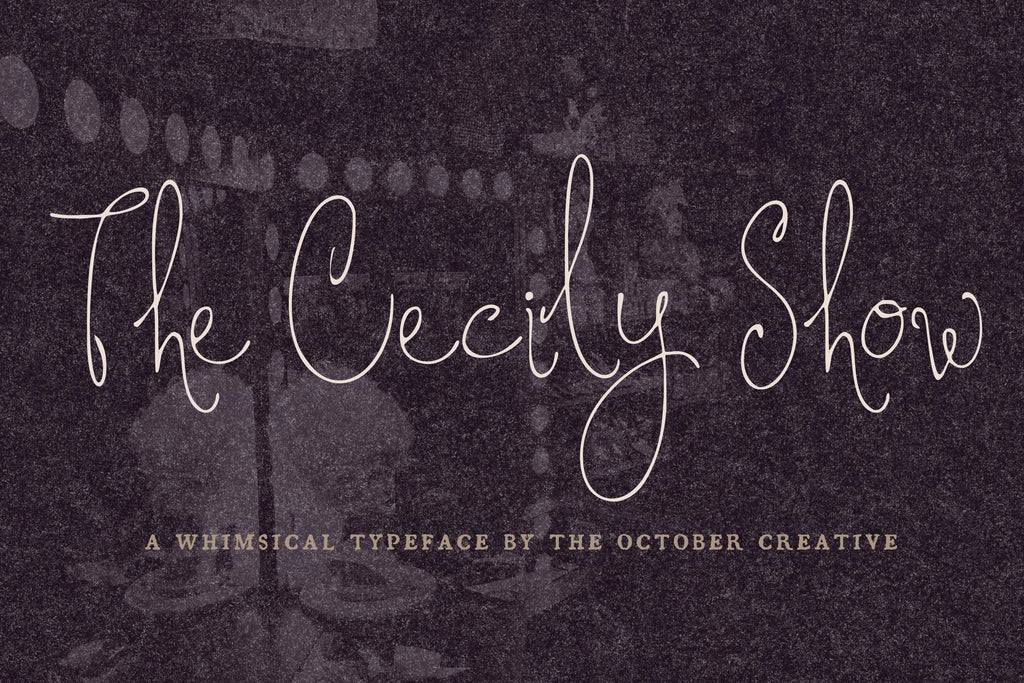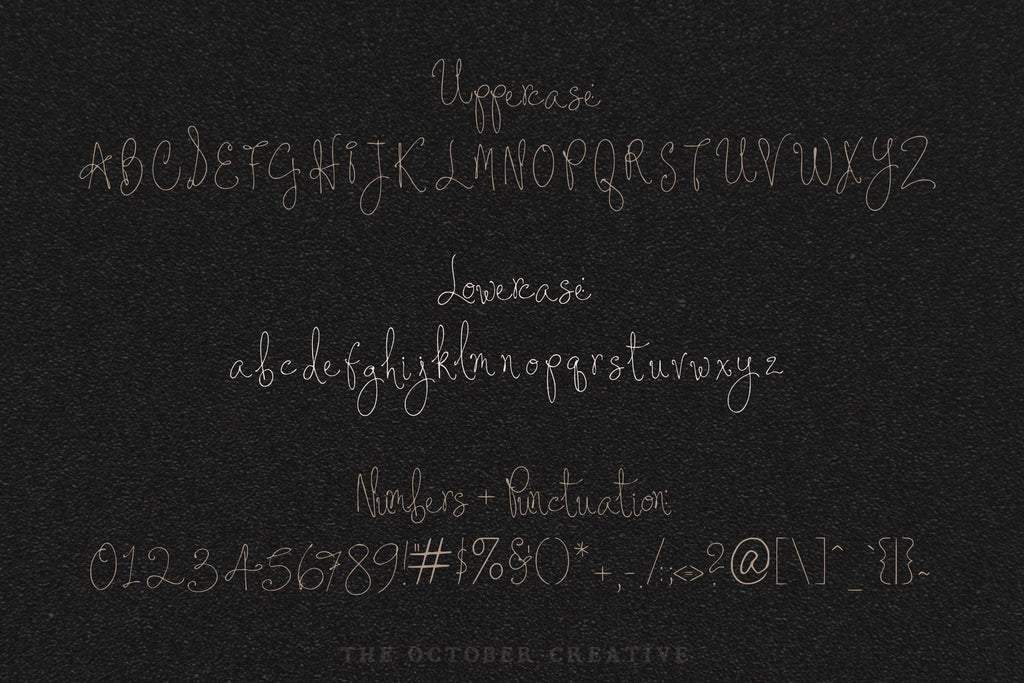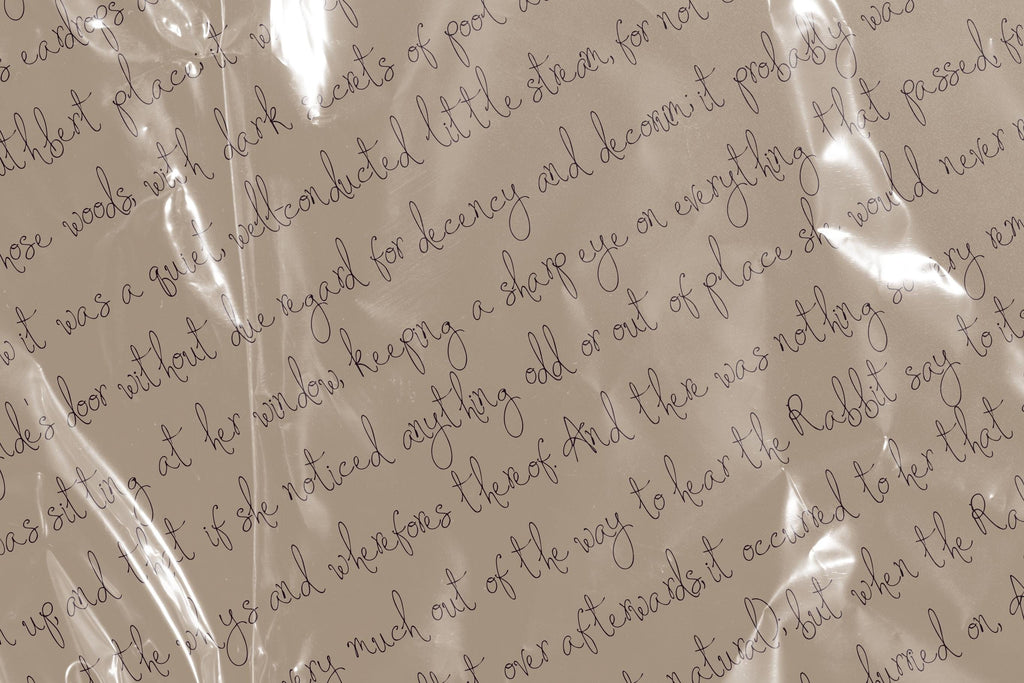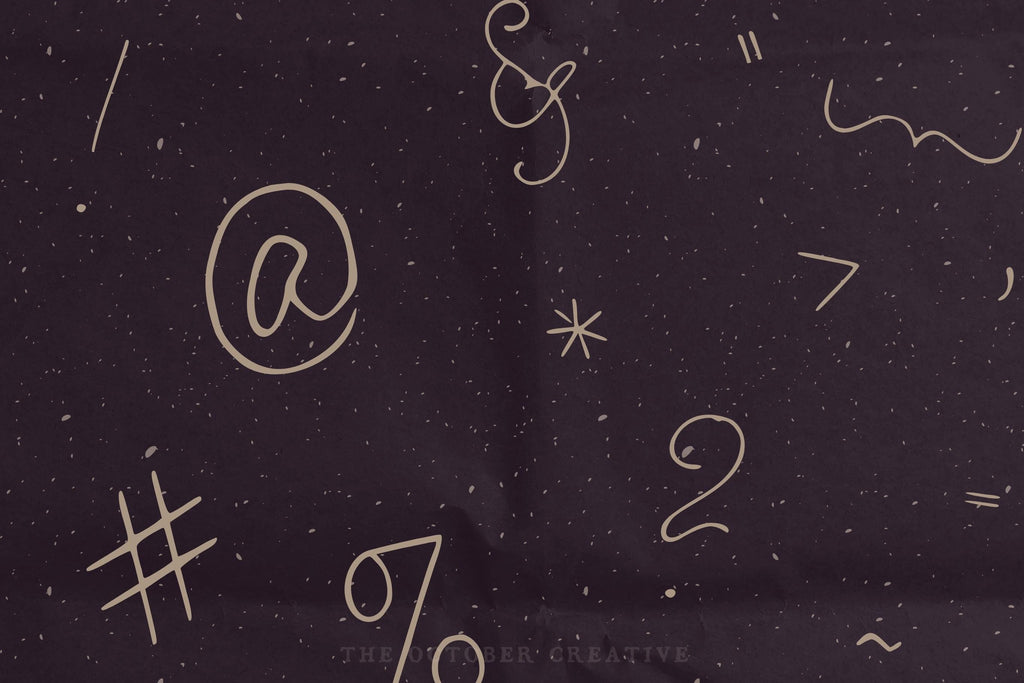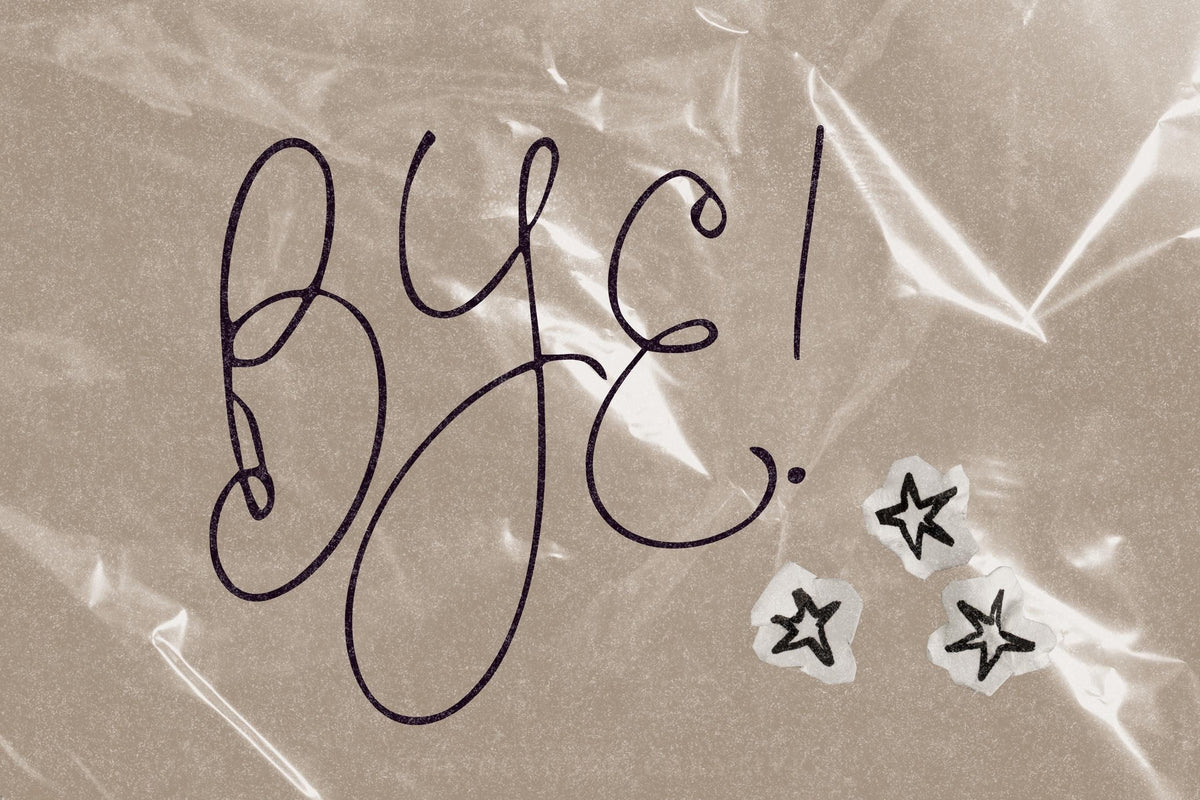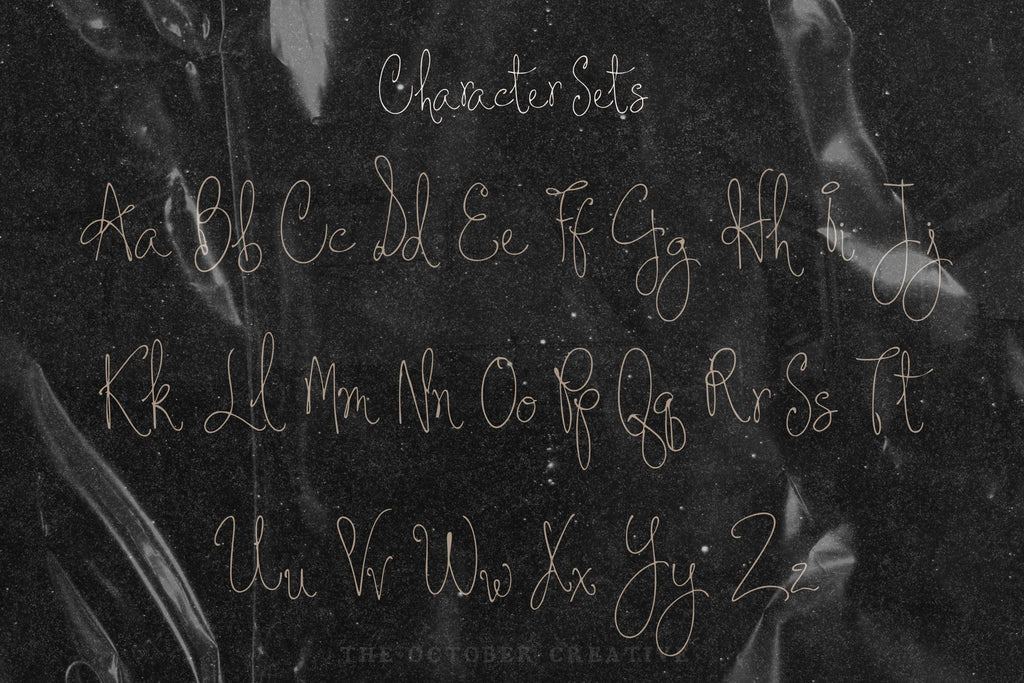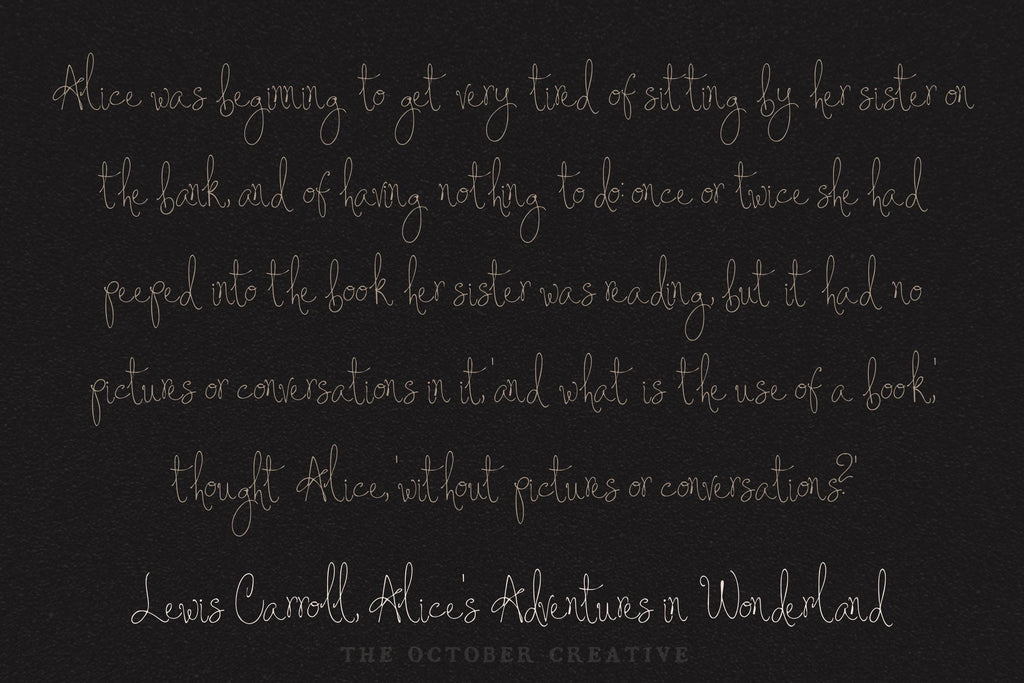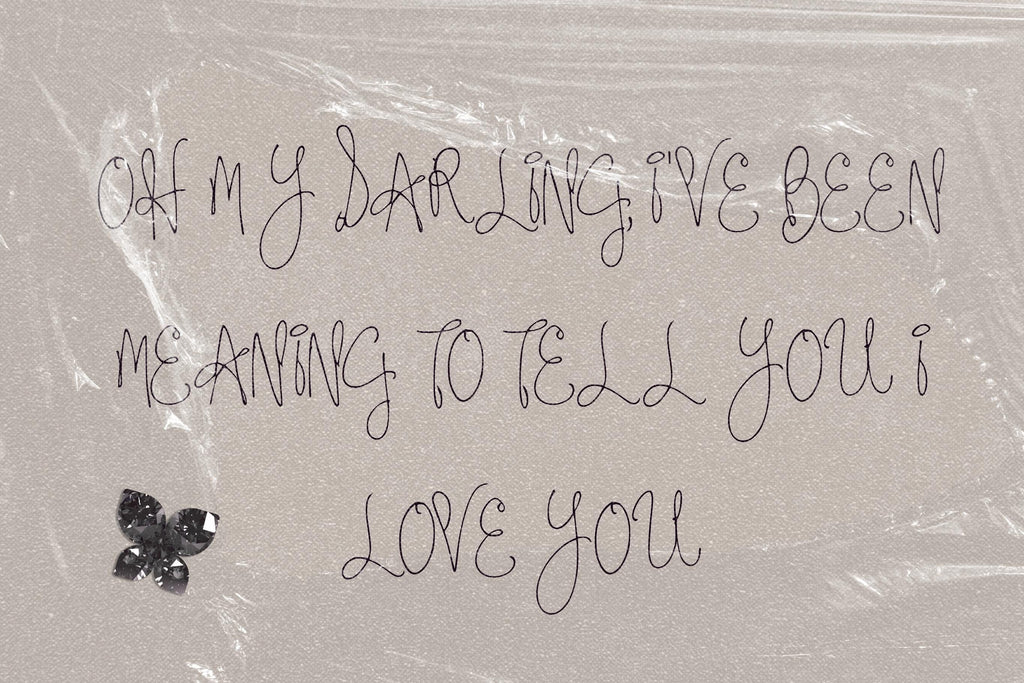
The Cecily Show Font
The Cecily Show is a thin signature script font with loopy, monoline letters and long swooping strokes. It works best for names and short phrases on place cards, wedding signs, invitations, and thank you cards.